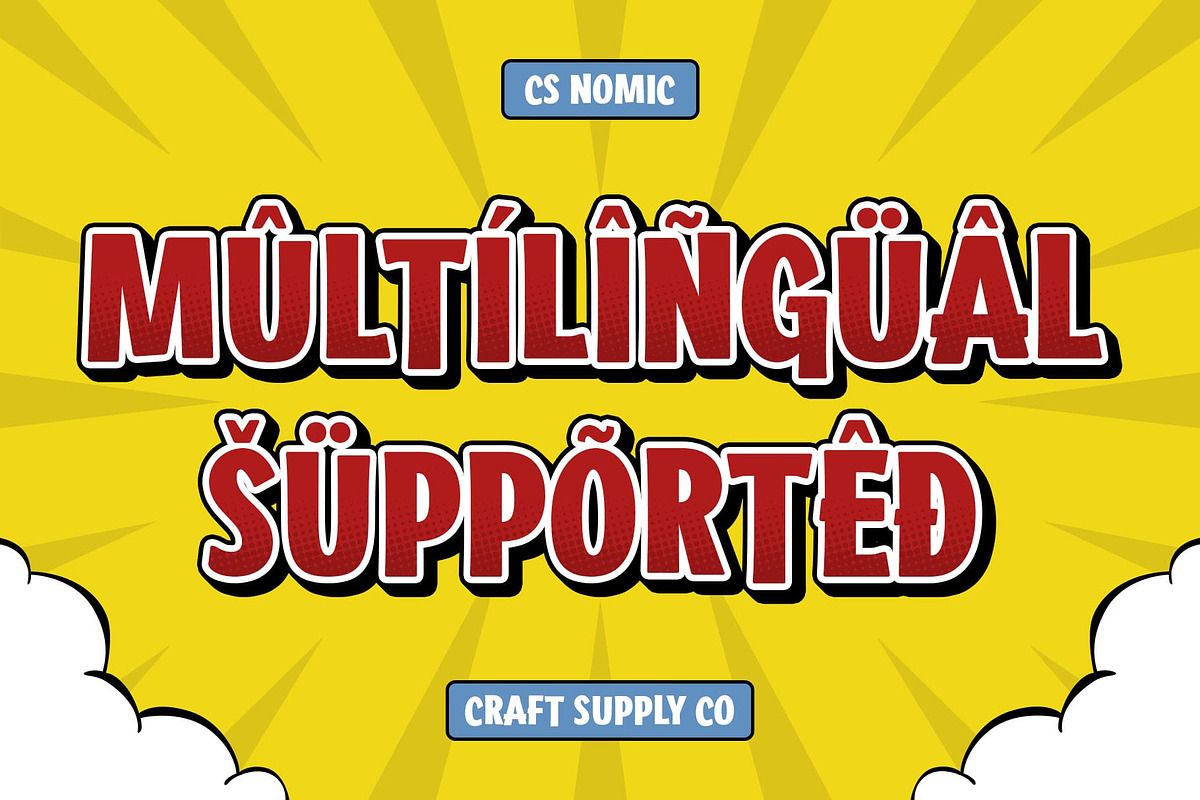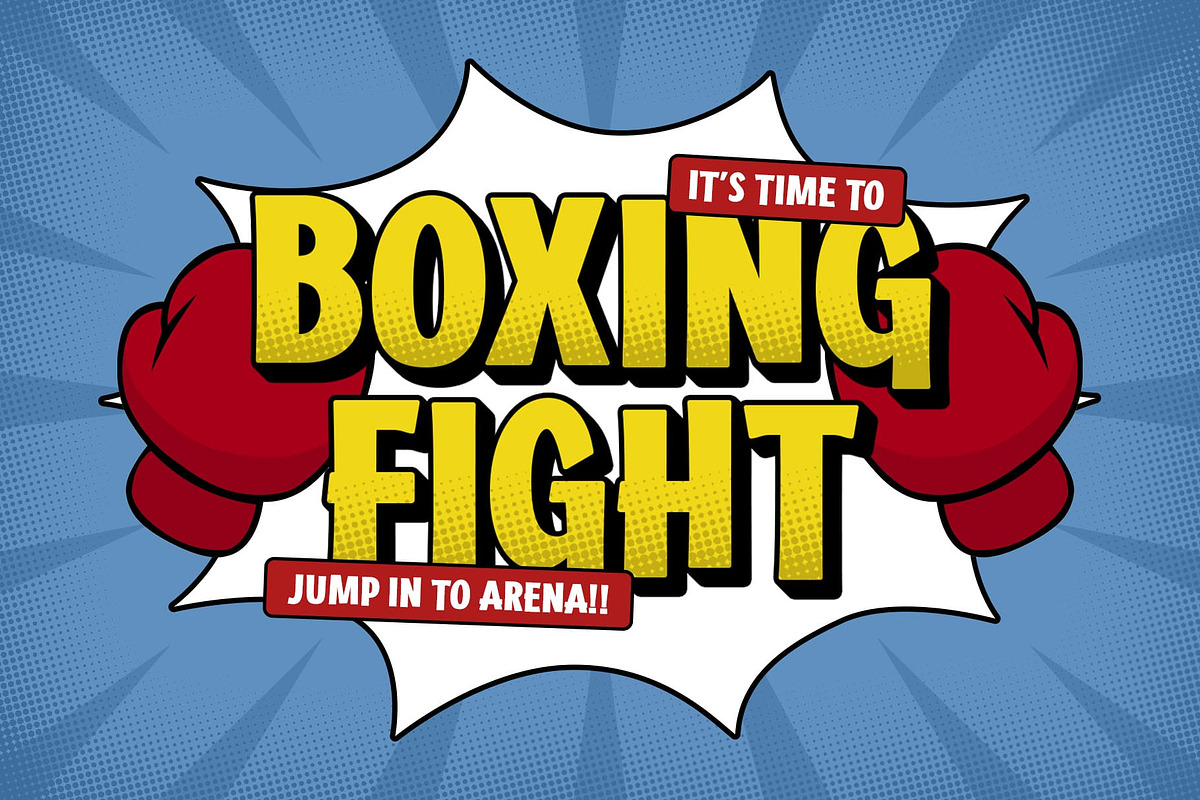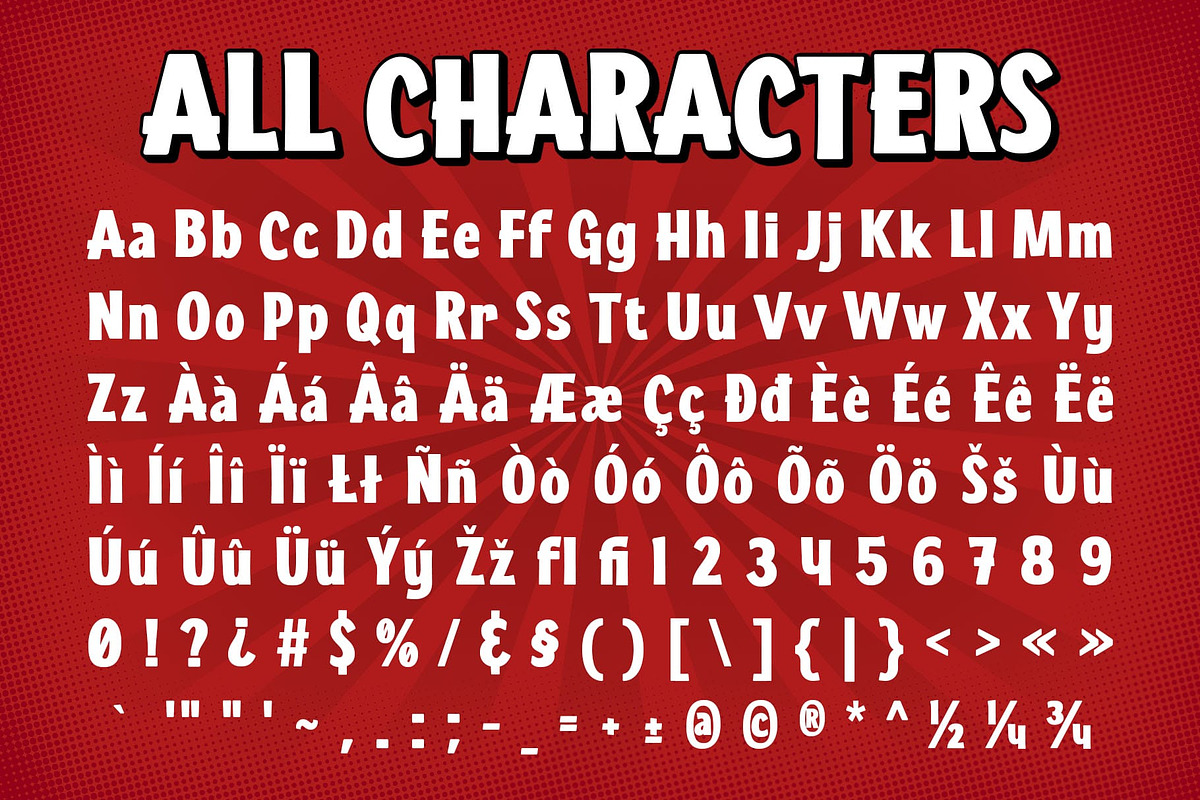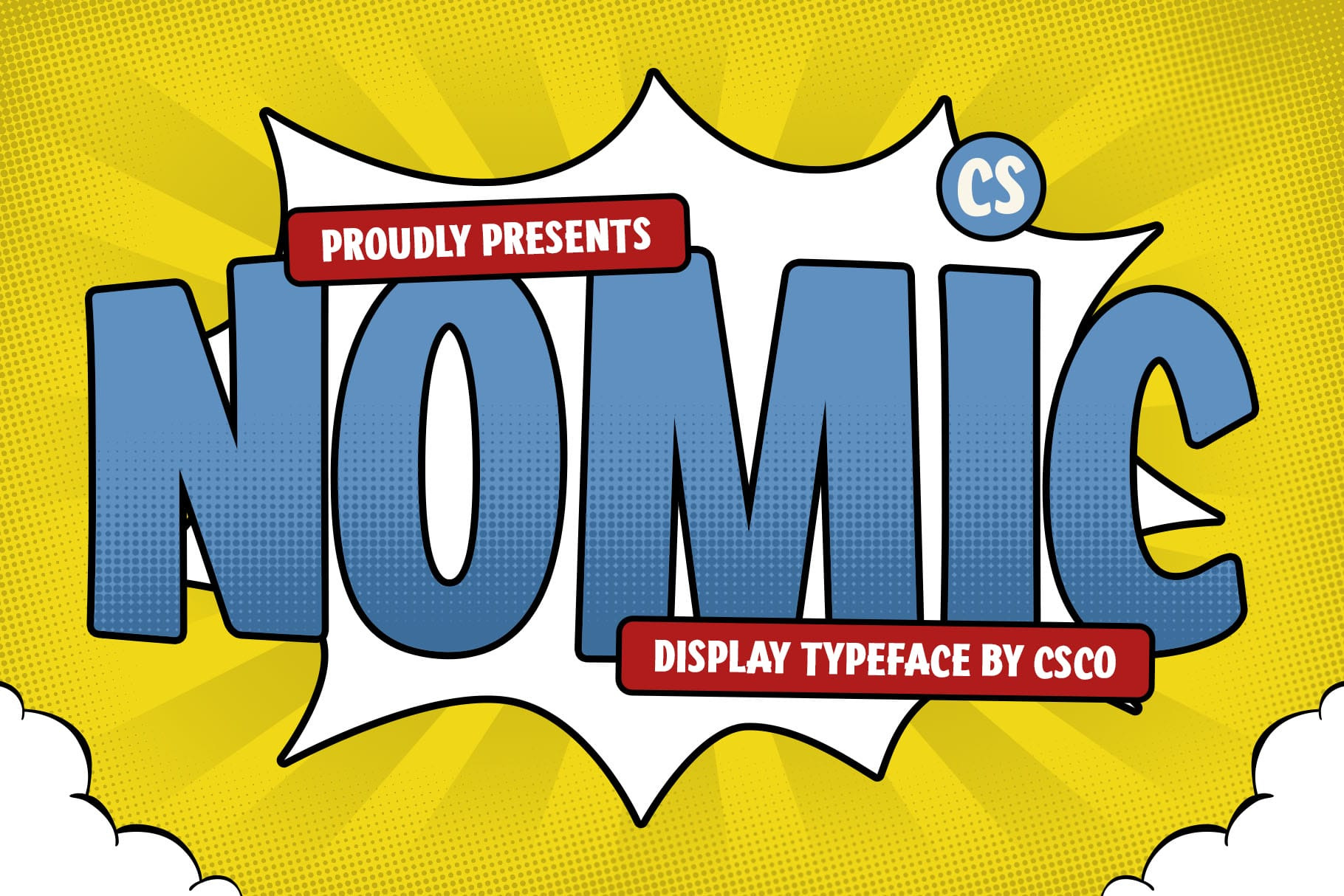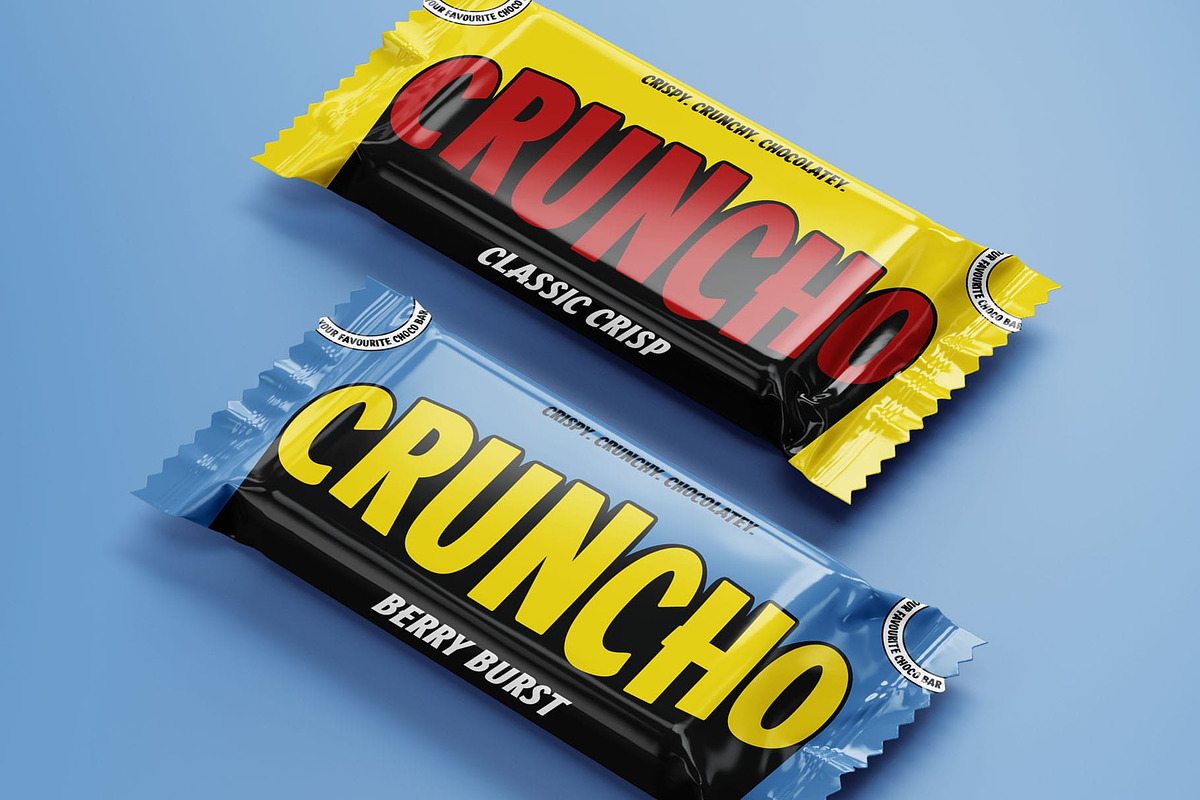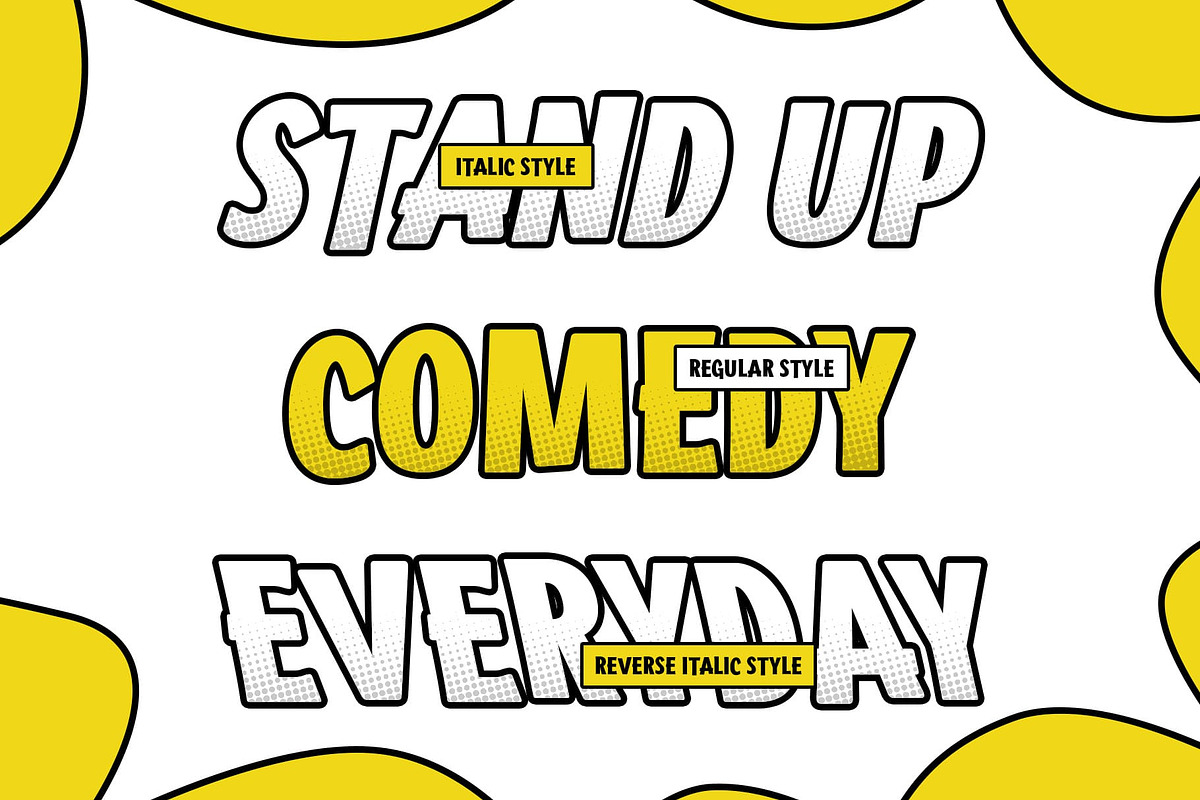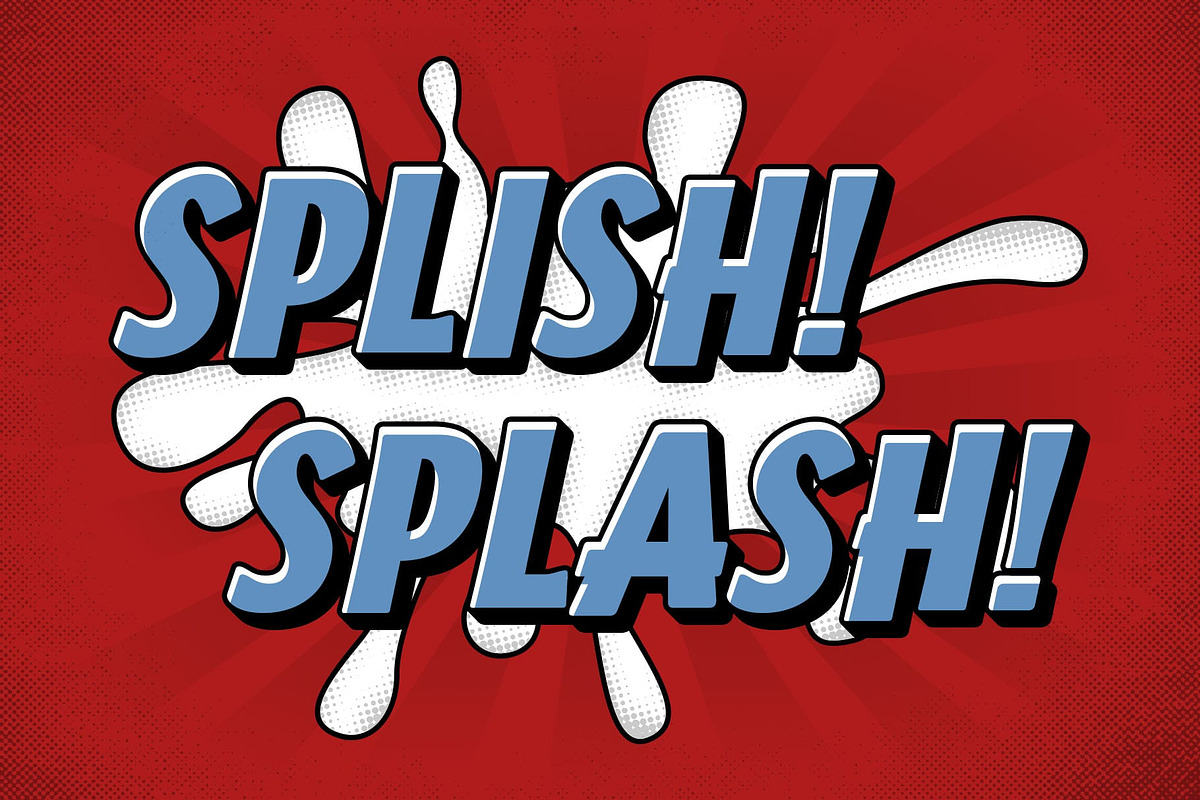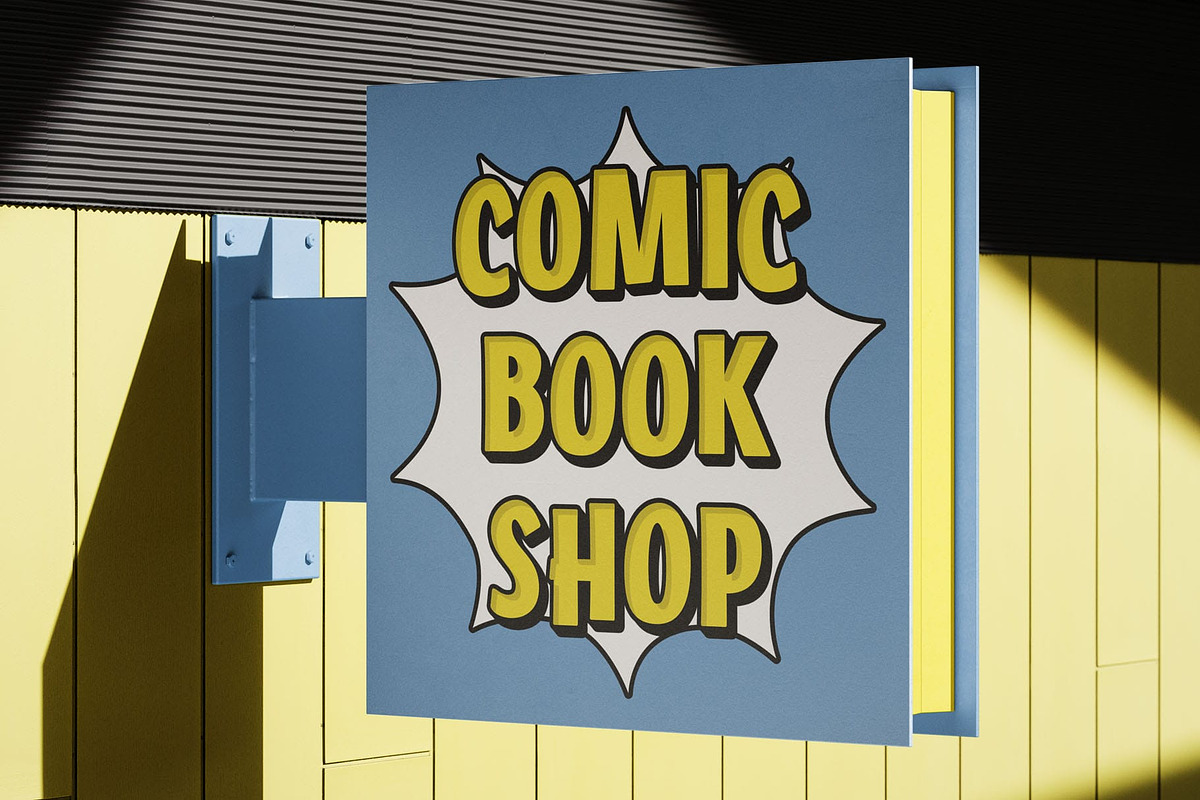
CS Nomic – Comic Font
CS Nomic – A Playful Comic Display Font
Fun and Expressive Comic-Style Font CS Nomic is a modern sans-serif display font infused with a lively comic-style aesthetic. Its bold, rounded letterforms and playful curves create a fun, friendly, and energetic look, making it perfect for designs that aim to capture a sense of joy and excitement.
Bold, Rounded, and Full of Character Designed with smooth edges and a bouncy baseline, CS Nomic delivers a dynamic and approachable feel. The well-balanced proportions and strong presence ensure high readability while maintaining its whimsical charm, making it ideal for headlines, titles, and branding that need a youthful and engaging touch.
Versatile for Playful and Creative Designs This font is well-suited for children’s books, comic-style artwork, cartoons, product packaging, and branding that embraces fun and positivity. Whether for illustrations, toy packaging, educational materials, or vibrant posters, CS Nomic adds a sense of warmth and excitement to any design.
Perfect for Engaging and Cheerful Branding CS Nomic’s bold yet soft aesthetic ensures it stands out while maintaining a welcoming and approachable vibe. It’s a perfect choice for creative businesses, entertainment branding, or any project looking to capture a lighthearted and friendly spirit. With its versatile and energetic character, CS Nomic brings an element of fun and expressiveness to any design.